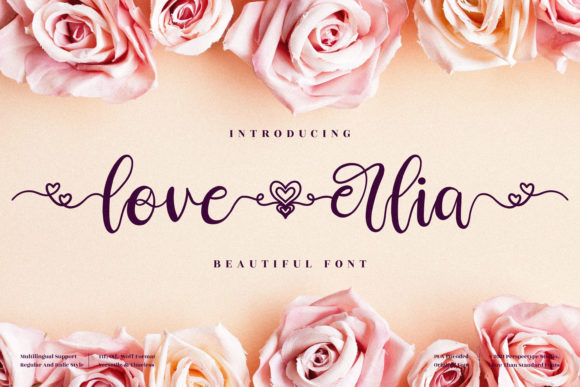
Feast your eyes on Love Erlia, a charming and elegant script font that will enchant you with its romantic aura. Its flowing lines and graceful curves evoke the delicate beauty of nature, like a gentle breeze caressing the leaves of a tree. Dive into a world of love and harmony as Love Erlia weaves its magic into your designs.
With Love Erlia, you hold the key to unlocking a treasure trove of creative possibilities. Whether you're designing logos, crafting invitations, or creating stunning social media posts, Love Erlia will add a touch of sophistication and allure that will leave your audience spellbound. Its versatility knows no bounds, as it seamlessly adapts to a wide range of projects, from branding materials to personal correspondence.
Love Erlia is more than just a font; it's an experience that transports you to a realm of enchantment. Its meticulously crafted characters, adorned with intricate details, exude a sense of timeless elegance that will captivate your audience. Let your imagination soar as you explore the endless possibilities that Love Erlia presents.
As you immerse yourself in the world of Love Erlia, you'll discover a font that speaks to your soul. Its enchanting aura will infuse your designs with a touch of magic, leaving a lasting impression on all who behold it. Embrace the beauty of Love Erlia and let your creativity blossom into something truly extraordinary.